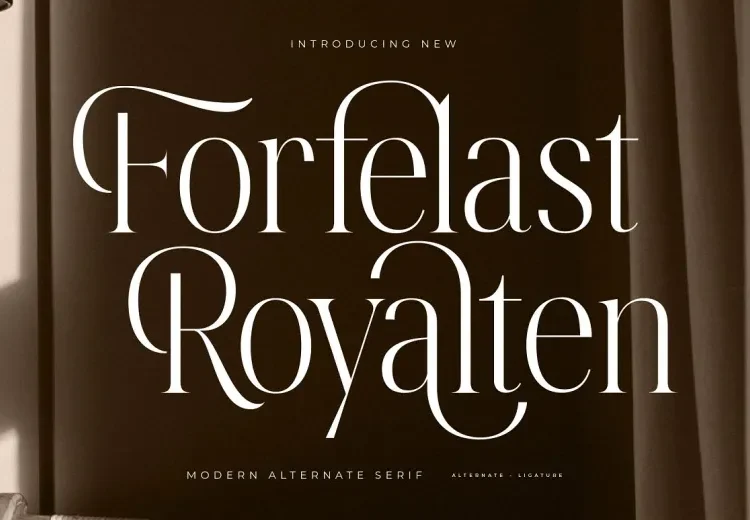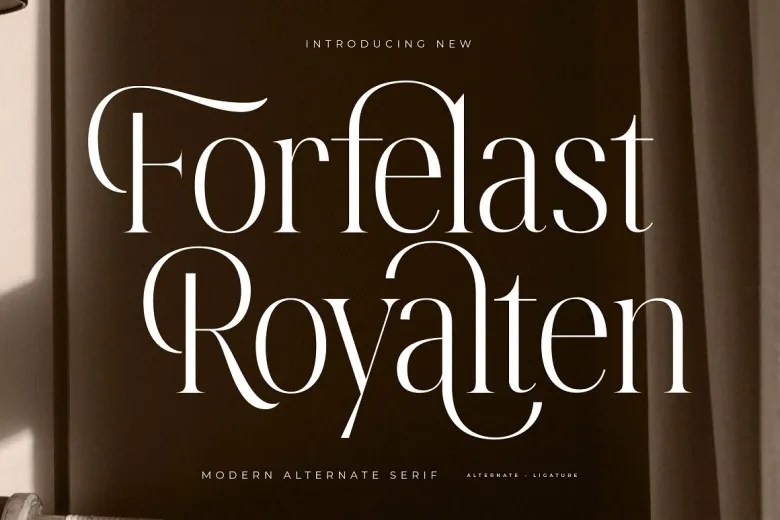
Forfelast Royalten Font
Forfelast Royalten is a modern alternative serif font designed to bring a touch of elegance and luxury to your projects. Ideal for logo design, brand identity creation, and packaging design for products such as cups or mugs, this font also excels in posters, quotes, shopping bags, T-shirts, name cards, book covers, greeting cards, invitations, watermarks, and more.
With its sophisticated and exquisite style, Forfelast Royalten is perfect for any high-end or luxurious design project that requires a refined serif font.